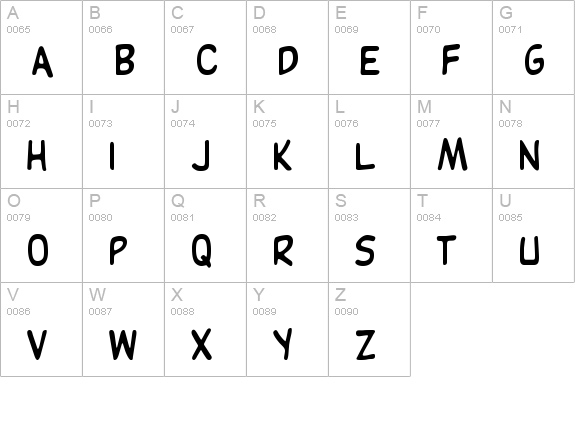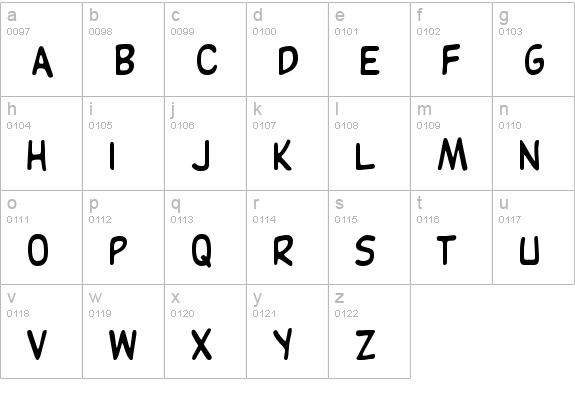
OPTIKartoon-Bold Font Details
OPTIKartoon-Bold is a strong, high-contrast variant in the OPTIKartoon typeface family \xE2\x80\x94 well suited to headlines, attention-grabbing titles, and strong calls-to-action.